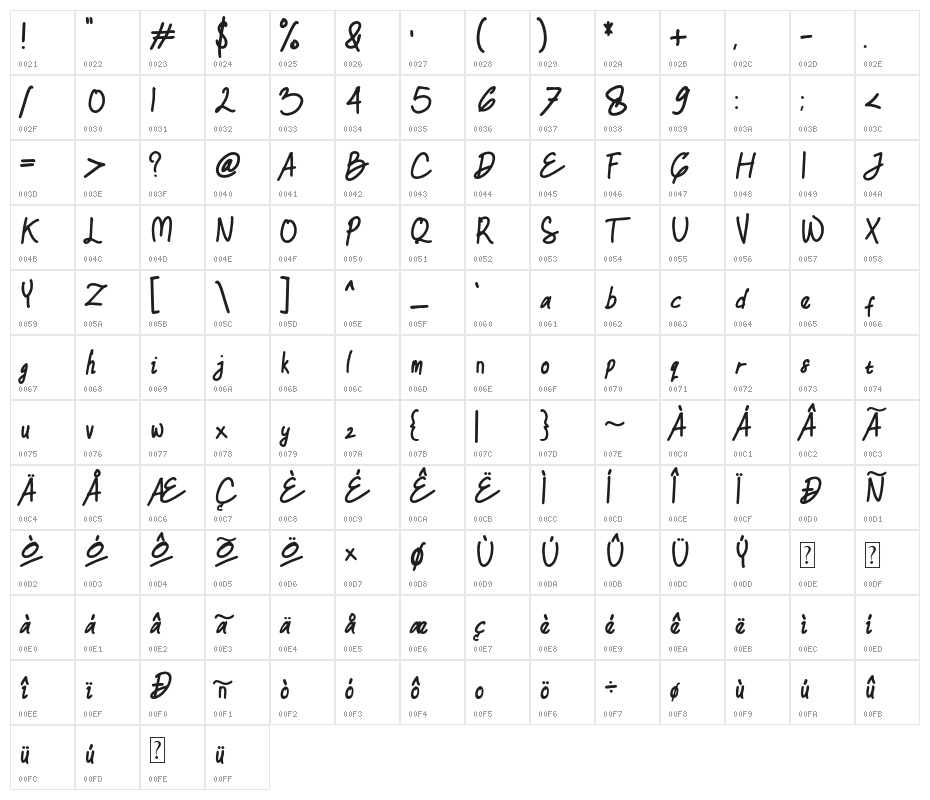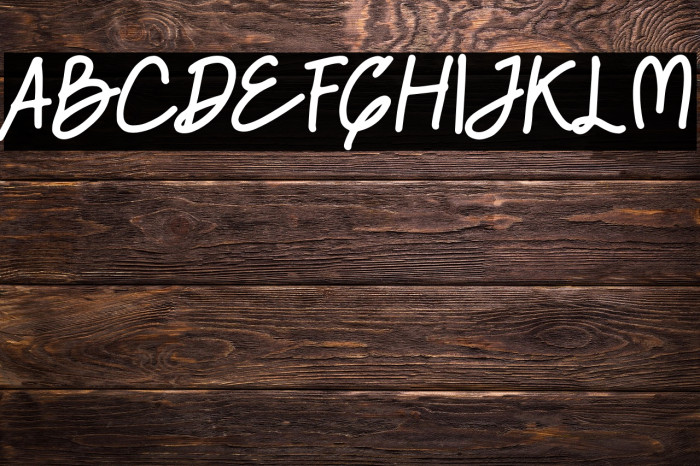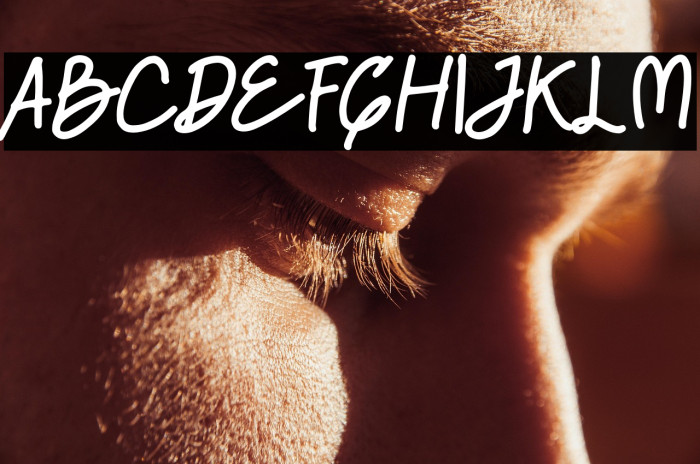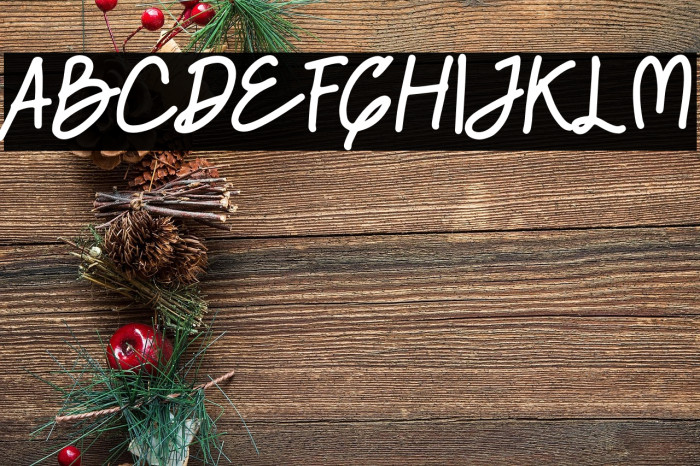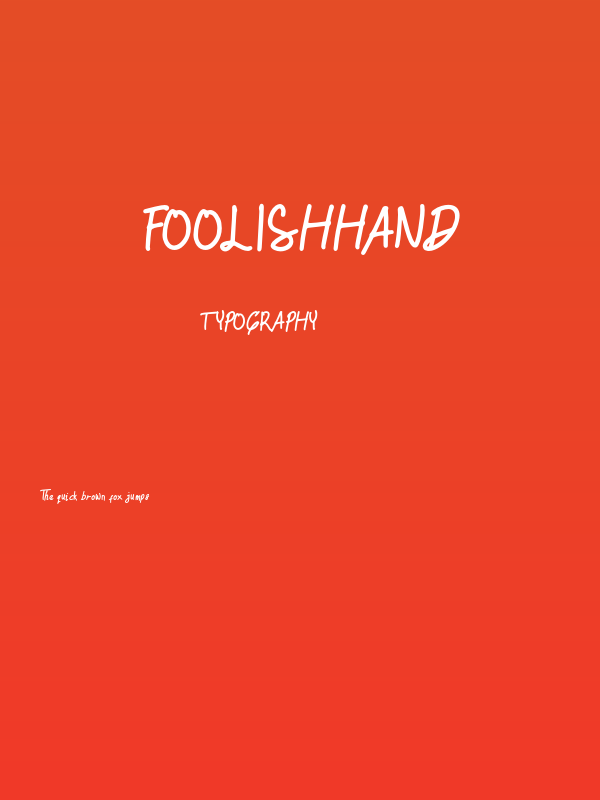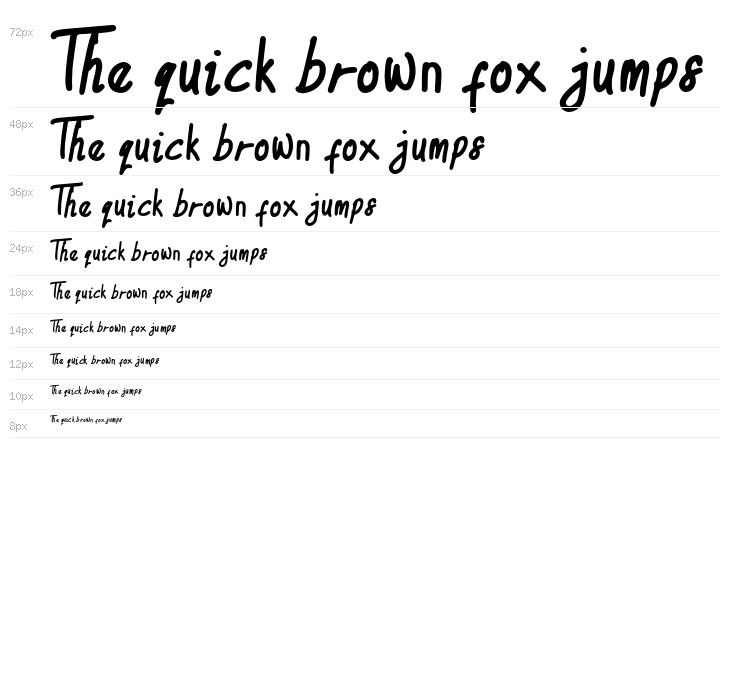
FoolishHand Font
FoolishHand Description
A playful, handwritten font with a casual and informal style, featuring uneven strokes and a natural flow.
| Overall Style | Casual, Playful |
| Use Case | Headlines, Informal text, Branding |
| Proposed Projects | Greeting cards, informal invitations, playful branding. |